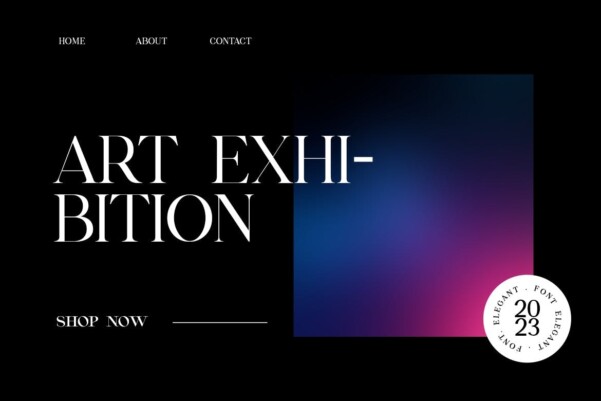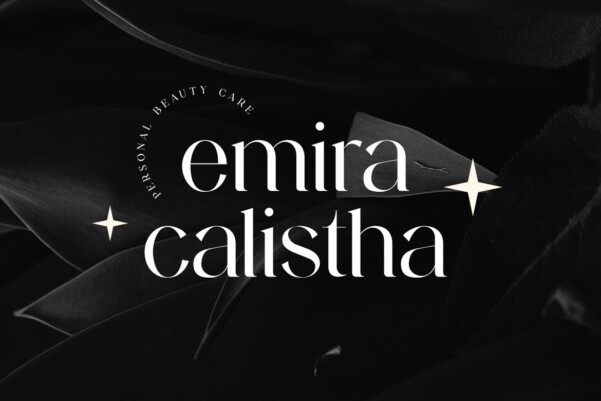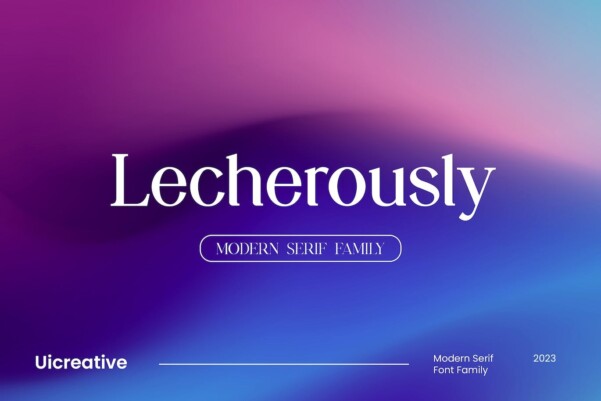
Lecherously Serif Font
Lecherously Modern Serif Family Font . Lecherously Modern Serif Family Font comes with 9 different weights that feels beautiful classy, ​​elegant, and modern. This font is perfectly suited for a wide variety of projects, such as signature, stationery, logo, wedding, typography quotes, magazine or book covers, website headers, branding, packaging design, and more. Also, fashion-related branding or editorial design displays both masculine and feminine qualities.